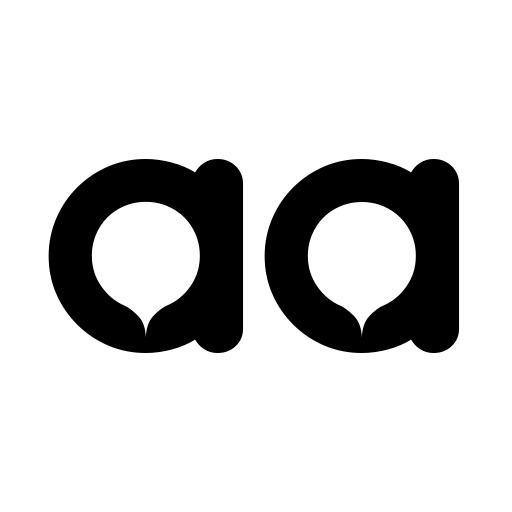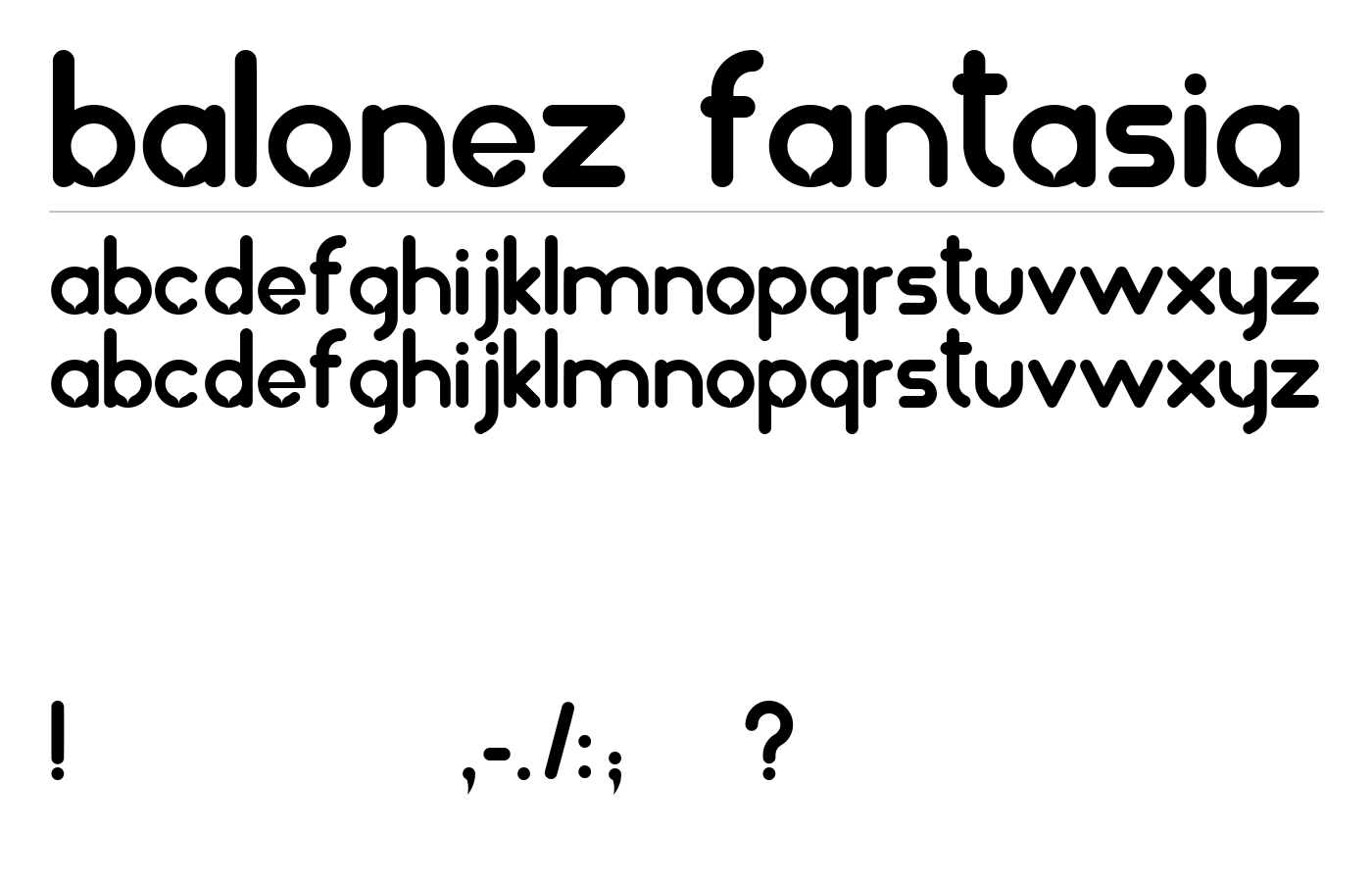
Balonez Fantasia is a playful and modern sans serif font featuring rounded, bubble-like shapes and consistent stroke weight that convey a friendly and approachable vibe. Its unique letterforms, such as the stylized tails on letters like 'z' and 'g', add a whimsical touch that makes it ideal for creative branding, children's products, and casual headlines. This font shines in designs needing a fun, contemporary look with clear readability and cheerful personality.
balonez fantasia Font
About balonez fantasia Font